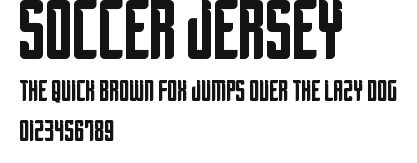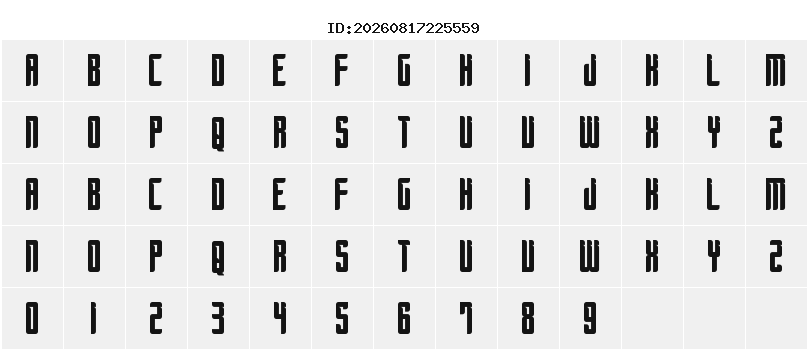
Soccer Jersey Preview
• Font Name: Soccer Jersey
• Full Font Name: Soccer Jersey Regular
• Designer: André Felipe
• Description: “Soccer Jersey” was built with FontStruct
About Soccer Jersey.ttf
Soccer Jersey.ttf is a modern, elegant sans-serif font designed for ultimate readability and visual harmony. Perfect for branding, headlines, web design, and print materials.